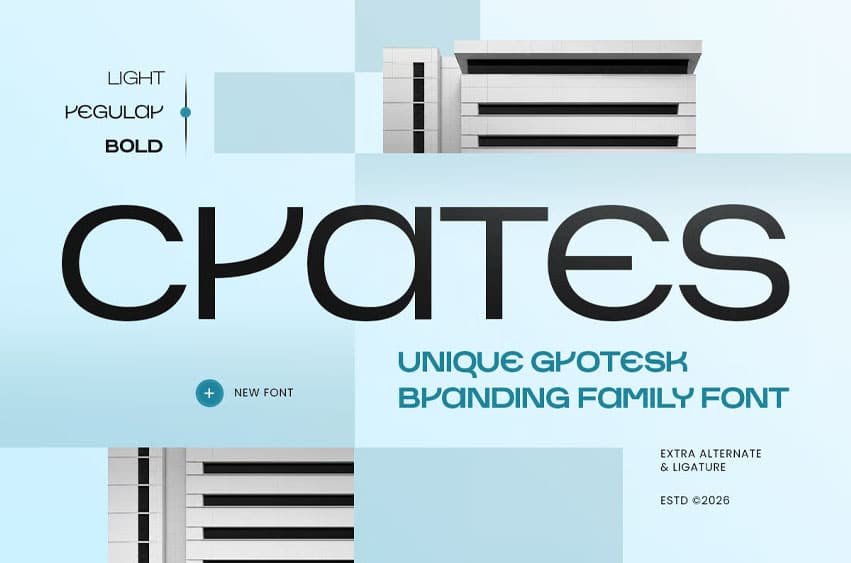
Crates Font is a unique grotesk branding family font crafted for modern visual identities, professional typography, and versatile brand communication. With distinctive letterforms, balanced proportions, and a clean grotesk structure, it creates a strong and memorable presence across different design projects.
Designed for logos, corporate branding, business identity, packaging, editorial layouts, advertising materials, and digital graphics, Crates combines contemporary simplicity with unique character and professional versatility.
Perfect for designers who want a grotesk font family with modern structure, strong readability, and distinctive branding personality.
Crates Font Features
• Uppercase & lowercase
• Unique grotesk characters
• Multiple font styles
• Alternates & ligatures
• Multilingual support
• Professional kerning
Crates Font Perfect For Logo design, corporate branding, brand identity, packaging design, editorial headlines, advertising graphics, website designs, social media posts, business materials, and modern typography projects.